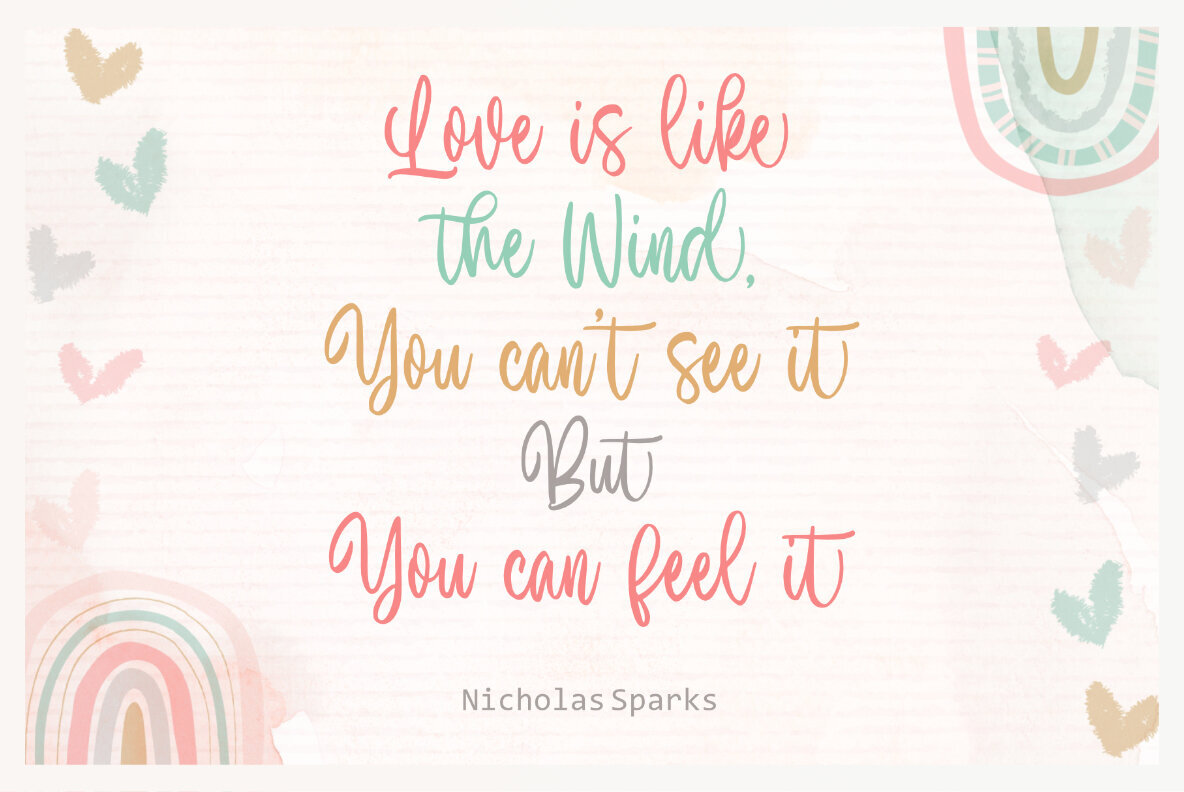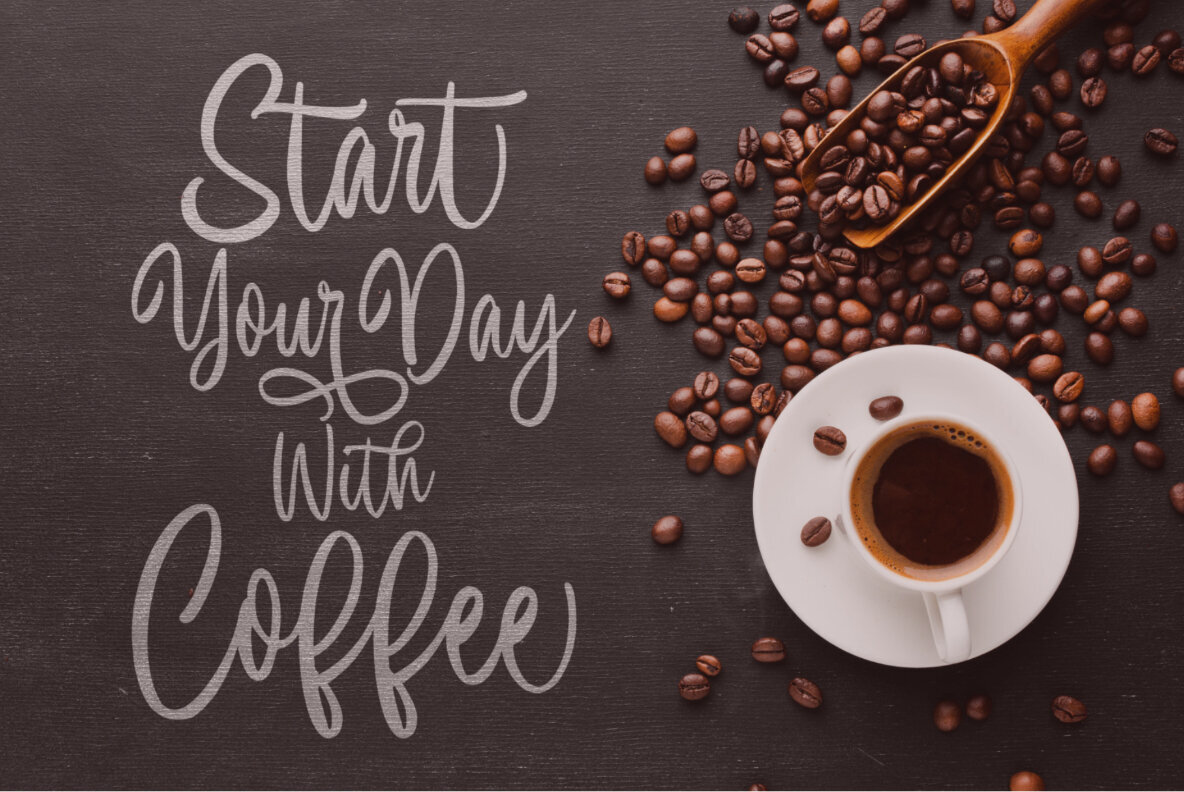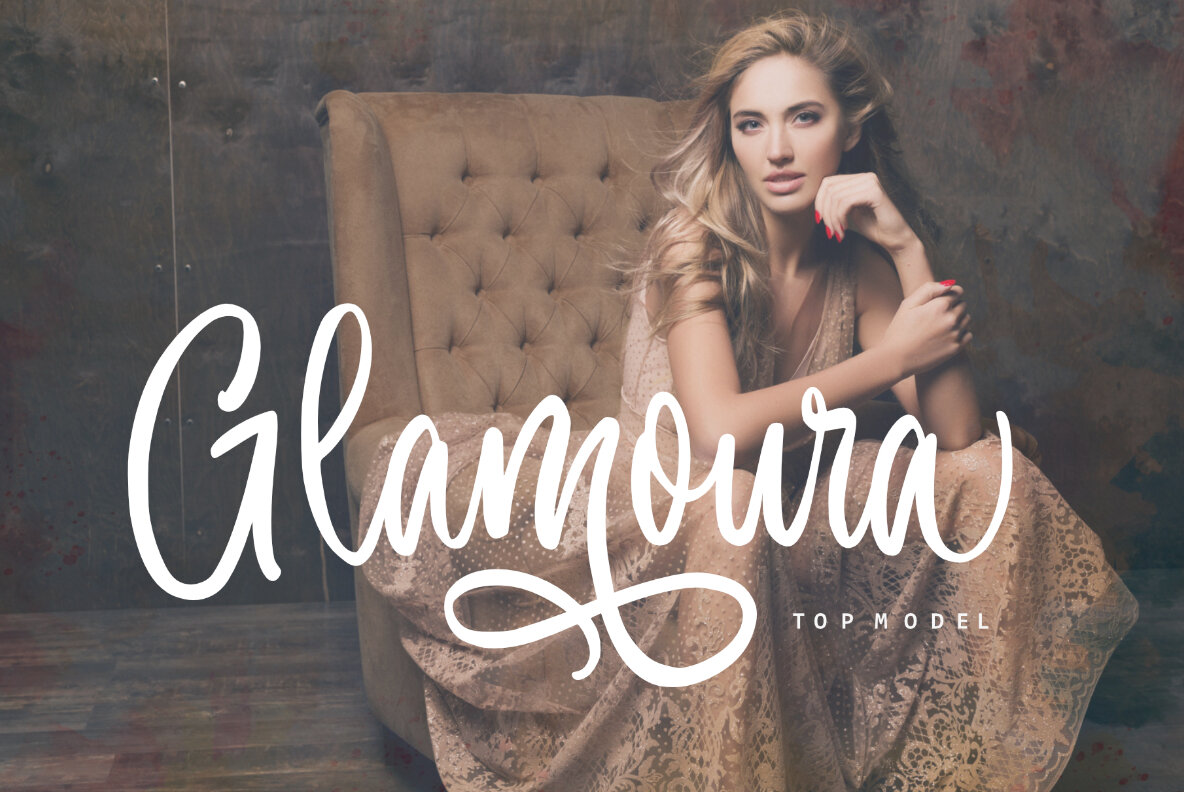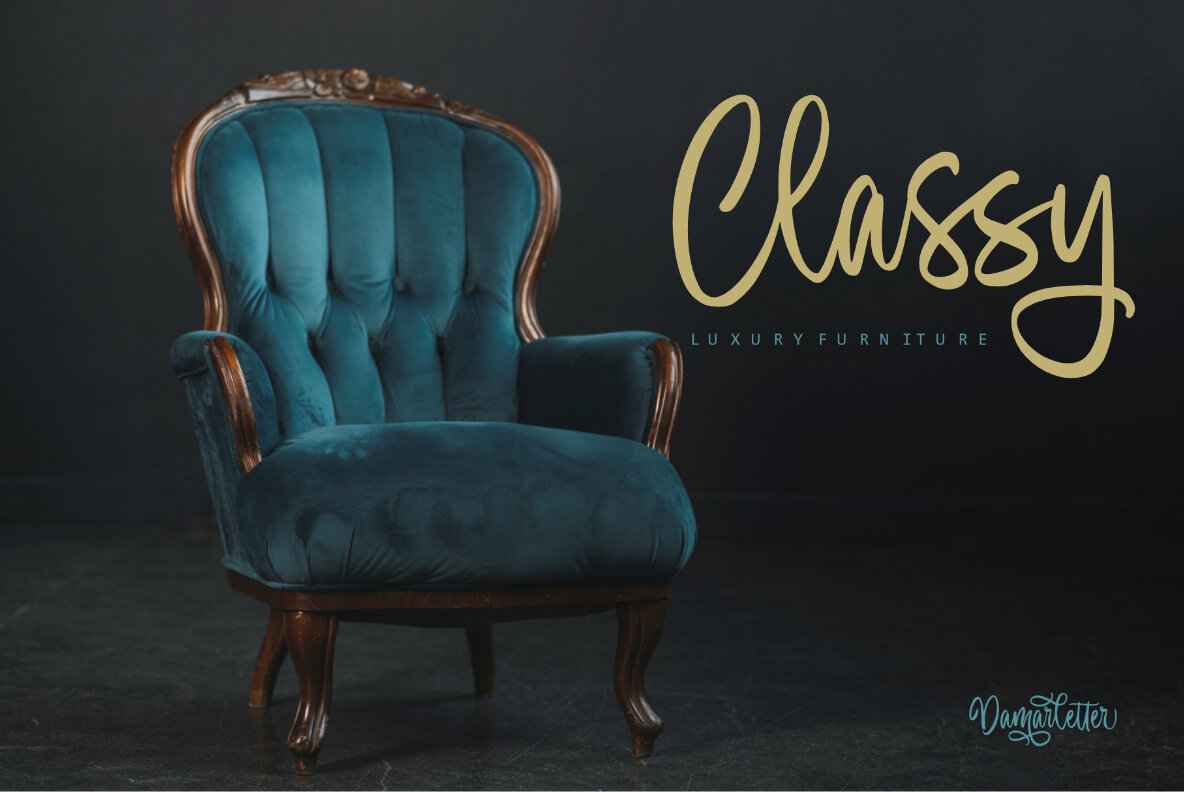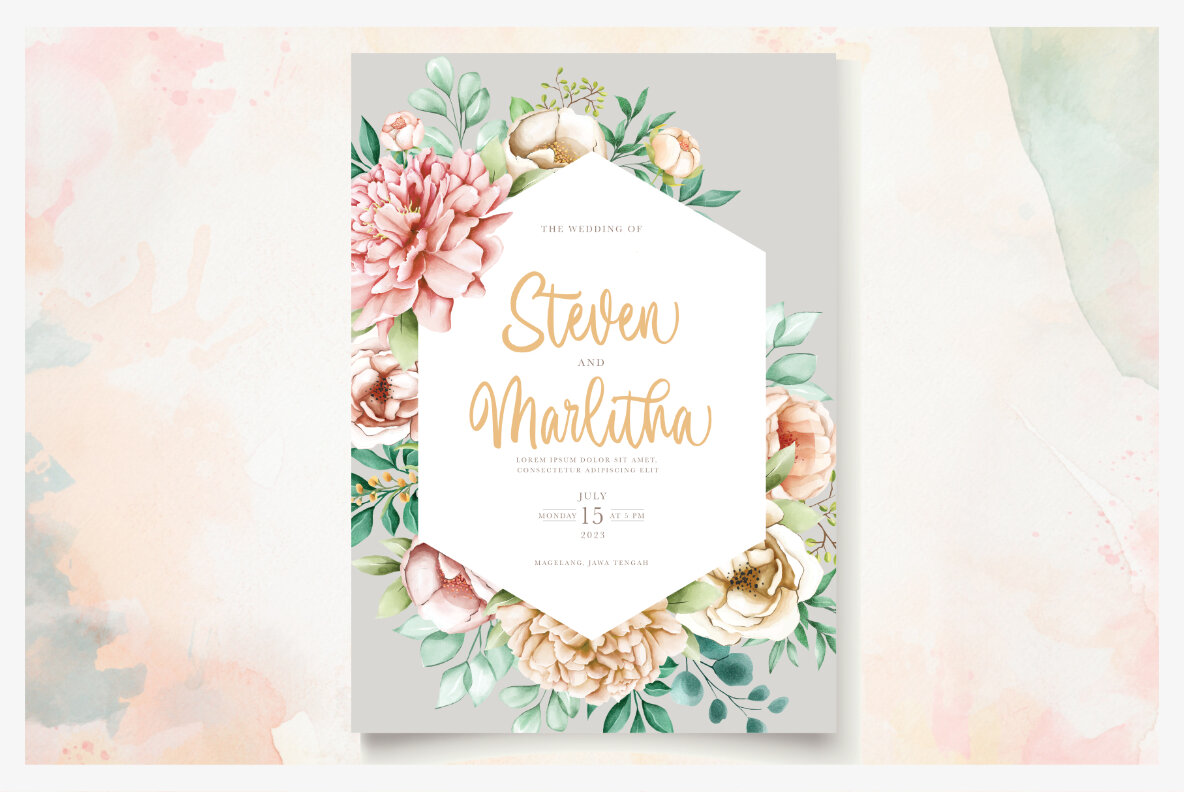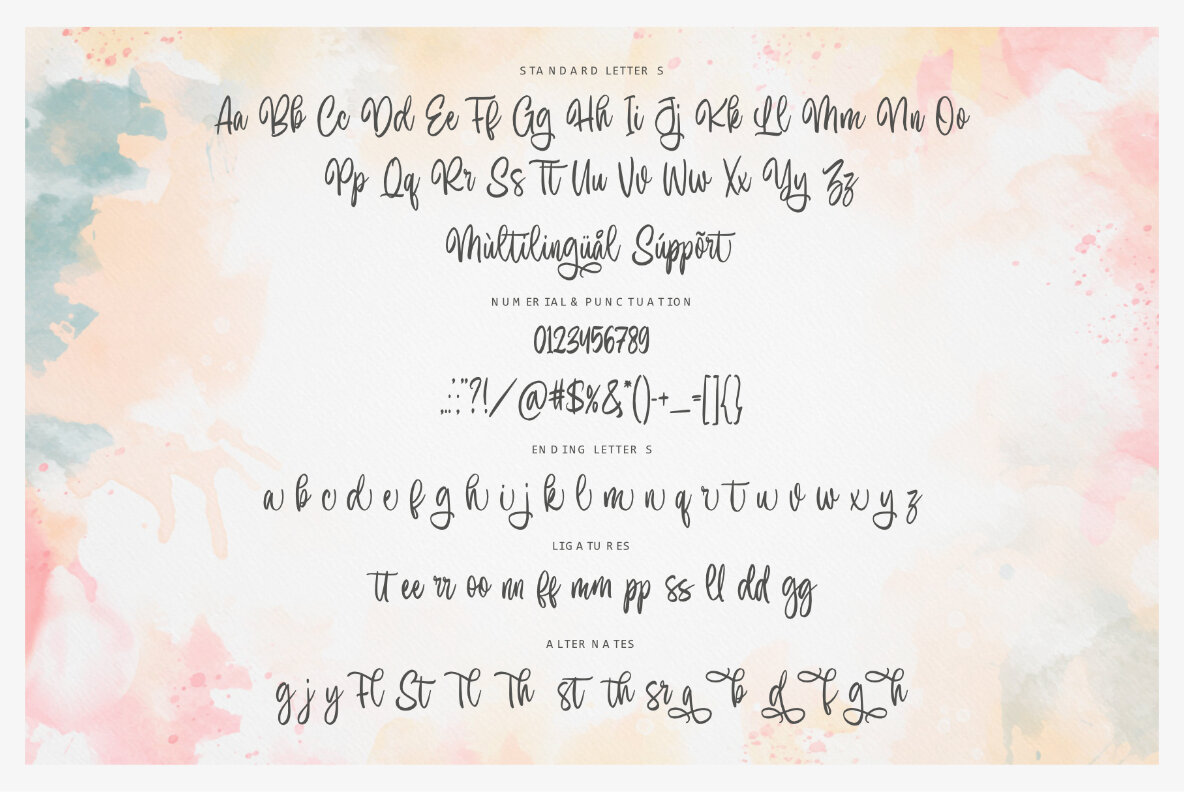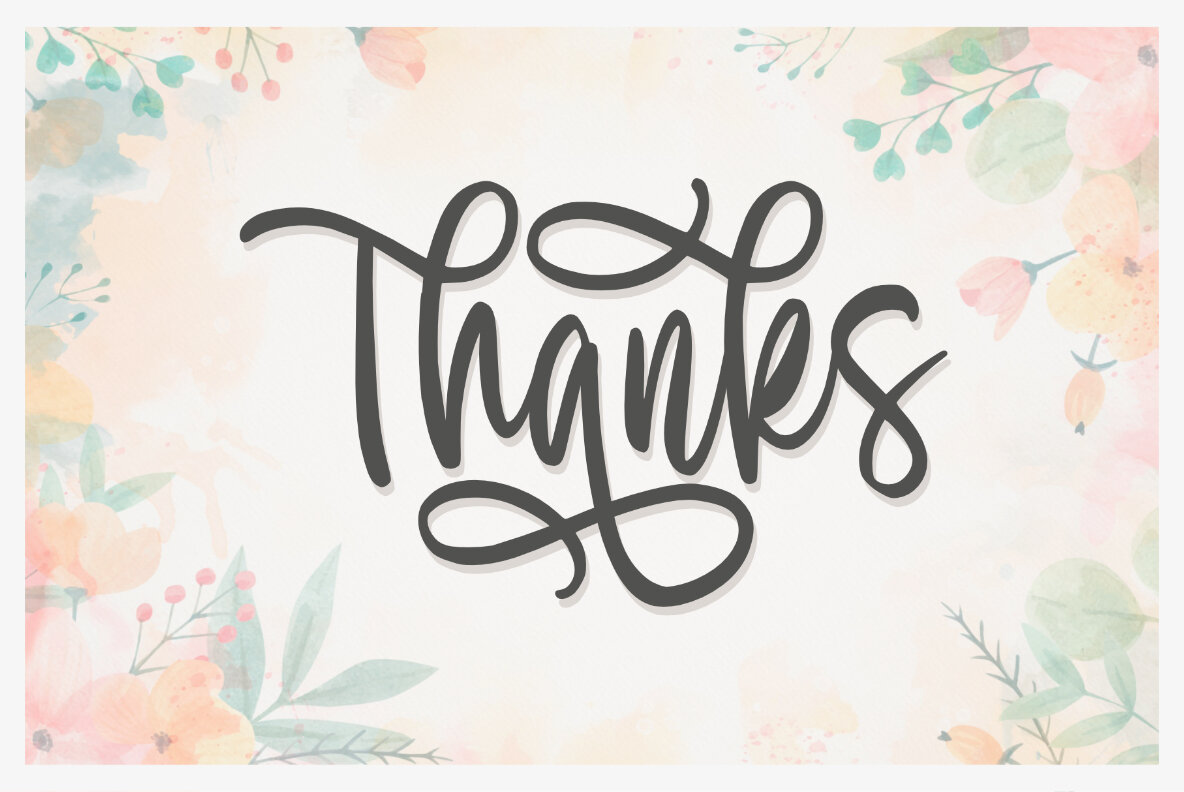
Hello Brigantia Font
Hello Brigantia
Brigantia, a chic and refined script font, boasts stylish ligatures that make it an ideal choice for a wide array of projects. With a fashionable script style that exudes class and a natural handwritten touch, Brigantia adds a unique charm to your designs. It perfectly complements branding projects, logos, wedding designs, social media posts, advertisements, product packaging, product designs, labels, photography, watermarks, invitations, stationery, and much more.